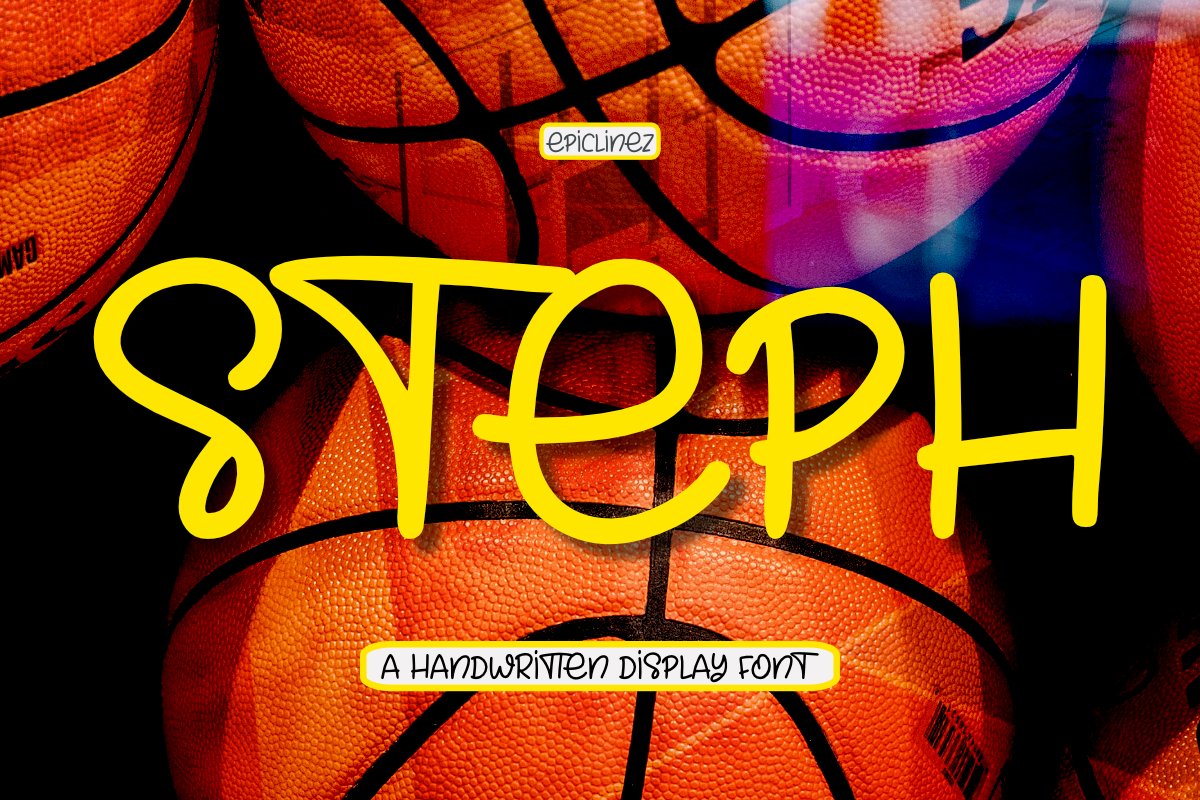
Steph - A Fun Handwritten Display Font
Steph is an authentic handwritten display font. This all caps font was inspired from the two time MVP, Stephen Curry from the Golden State Warriors. Arguably the greatest shooter of all time.
This fun and smooth buttery font comes with Basic Characters, Numbers, Punctuation's and Symbols, It also PUA encoded, supporting Open Type features. Diacritics are also available for Western and Central European Languages.